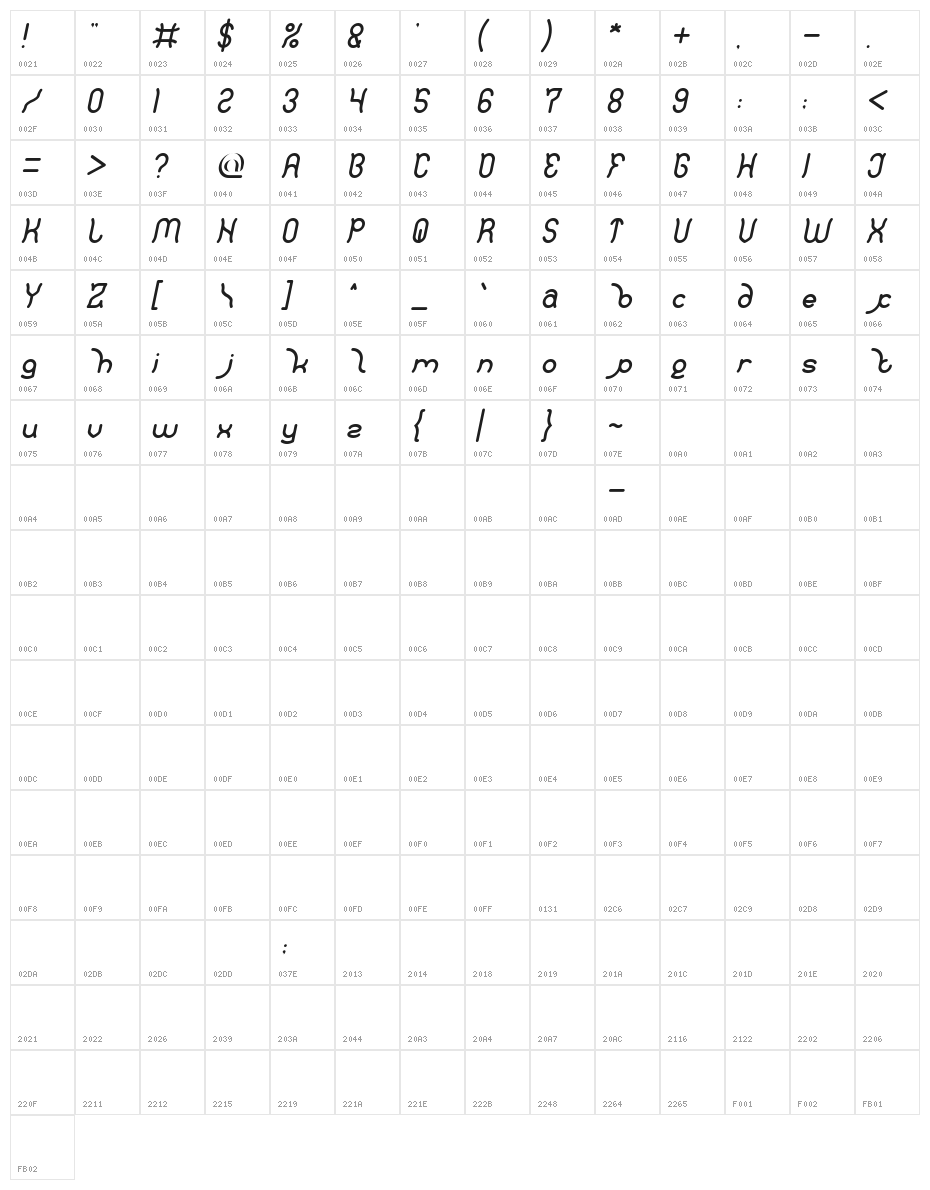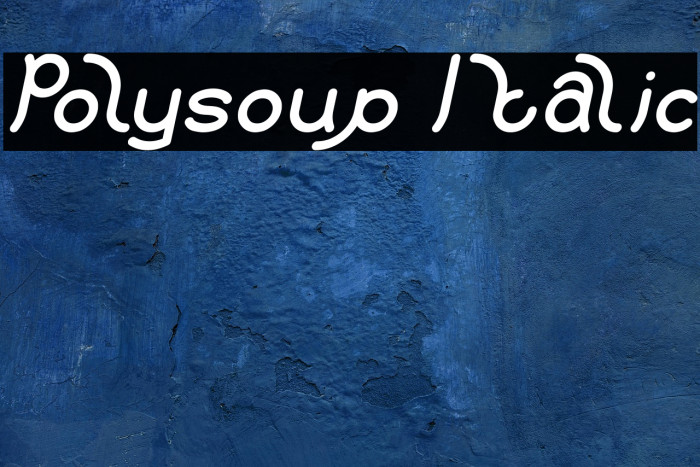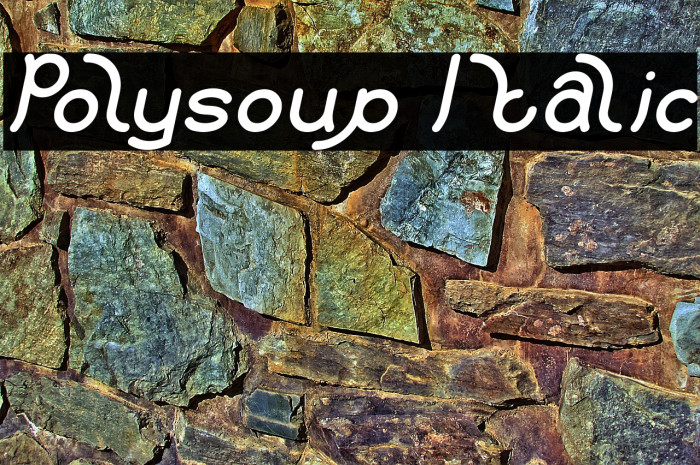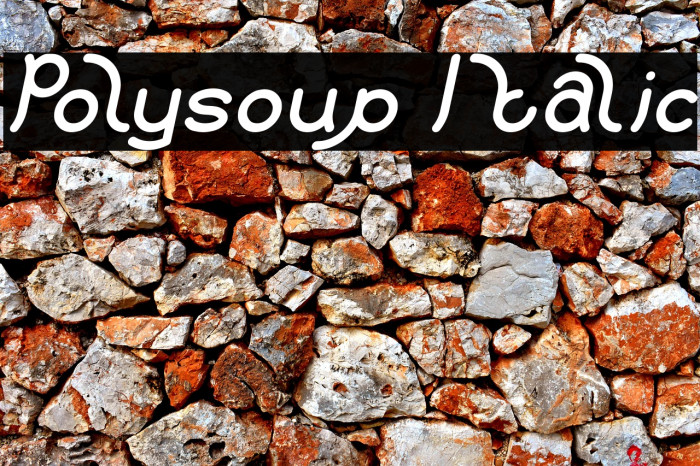
Polysoup Italic Font
Polysoup Italic Description
This font features a playful and dynamic design with a handwritten style. The characters are bold and rounded, giving a sense of friendliness and approachability. The italic slant adds a sense of motion and fluidity, making it ideal for creative and informal contexts. The strokes are consistent in thickness, providing a uniform appearance across all characters. The spacing between characters is moderate, ensuring readability while maintaining the font's unique style. Special characters are included, matching the overall aesthetic and ensuring versatility in usage.